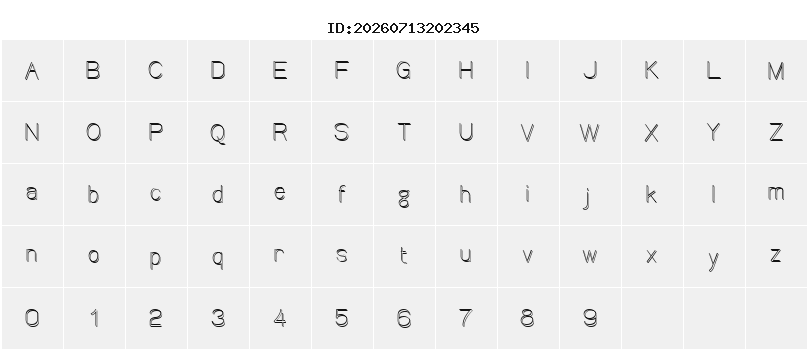
• Font Name: Canin
• Full Font Name: Canin
• Manufacturer: Graham Meade - Experimental
About Canin.ttf
Canin.ttf is a modern, elegant sans-serif font designed for ultimate readability and visual harmony. Perfect for branding, headlines, web design, and print materials.